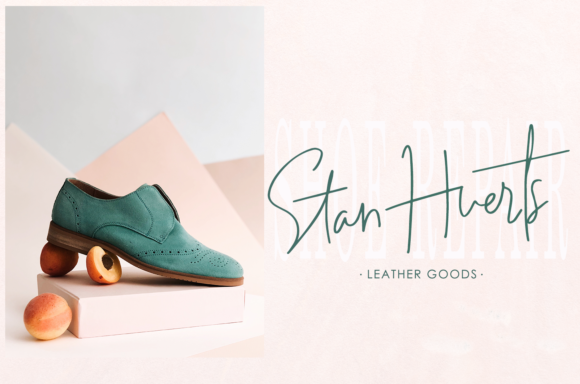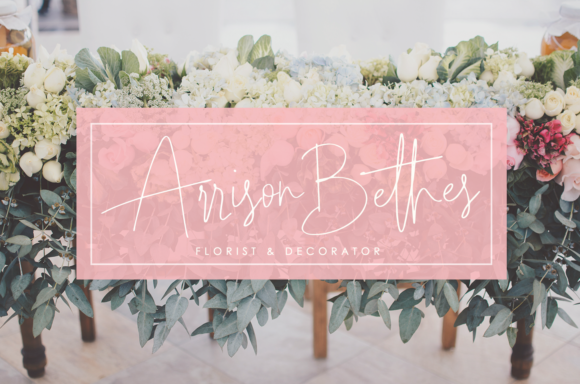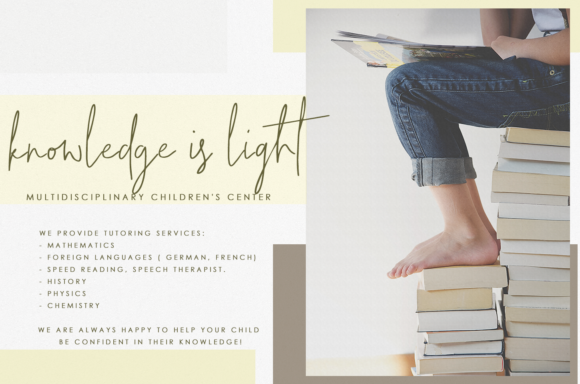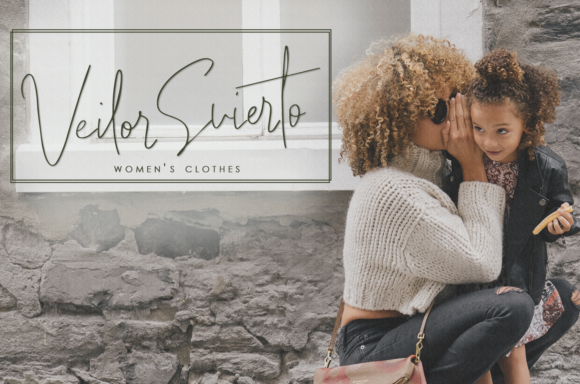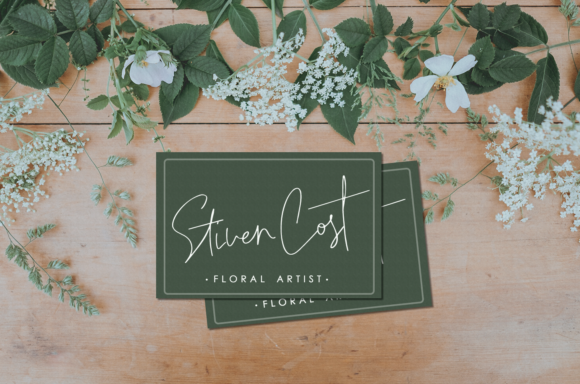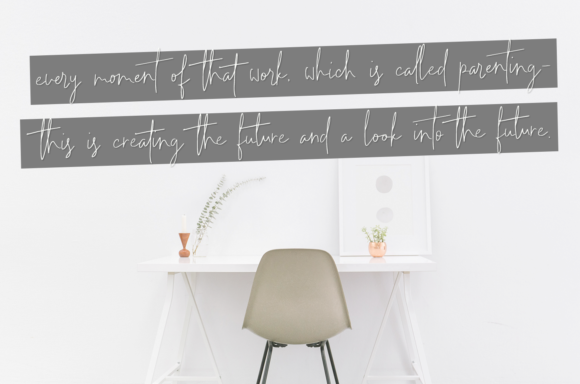
Introduction to Child and Family Font Font
Fonts play a crucial role in design, and the Child and Family Font font is a typeface that brings both character and versatility to any project. Whether you’re working on a branding project, a website, or a print design, the Child and Family Font font offers a unique style that can elevate your work.
Child and Family is light and thin signature font full of charm.
Get inspired by its unique feel .
Key Features of Child and Family Font Font
Why Choose Child and Family Font Font?
The Child and Family Font font is more than just a typeface – it’s a design tool that helps you communicate your message with style and clarity. Its unique character set and versatile design make it suitable for a wide range of applications, from elegant invitations to bold headlines.
With its carefully crafted letterforms and balanced proportions, the Child and Family Font font ensures readability and visual appeal across all mediums.
What makes Child and Family Font font special?
The Child and Family Font font stands out with its unique design, exceptional readability, and versatility across various design applications.